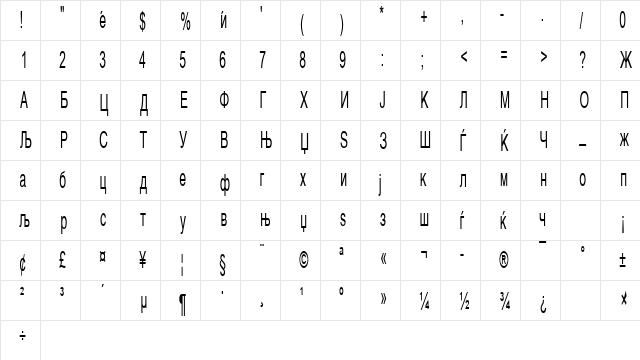
Macedonian Cond 50 Regular Font Preview
Macedonian Cond 50 Regular
Design Context for Macedonian Cond 50 Typeface
Macedonian Cond 50 is a composed and adaptable typeface that performs quietly and consistently across a wide range of design contexts. Its narrow stance lets it pack a punch even in space-constrained designs.